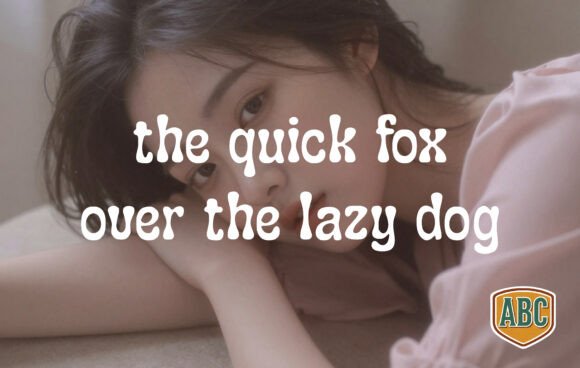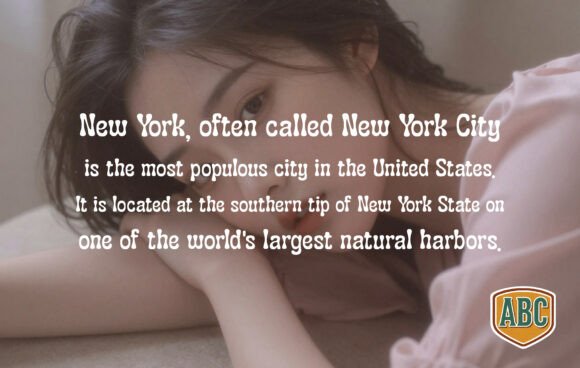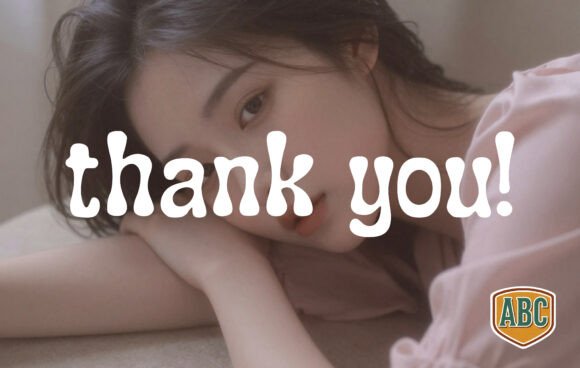
Introduction to Mistyrose Font
The MistyRose font is a gorgeous, “groovy” inspired display typeface with a modern, psychedelic twist.
This MistyRose typeface features fluid, melting letterforms that capture the trendiest aspects of retro-revival design Use the MistyRose font for fashion branding, art gallery posters, and high-style editorial covers where you want to make a bold, artistic statement.